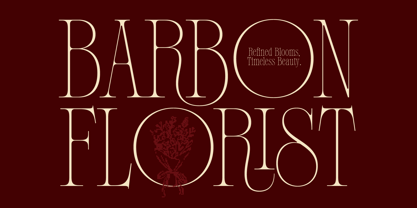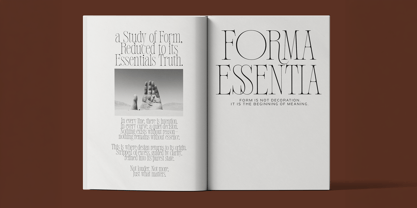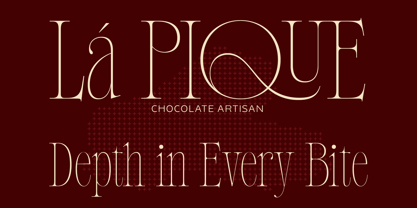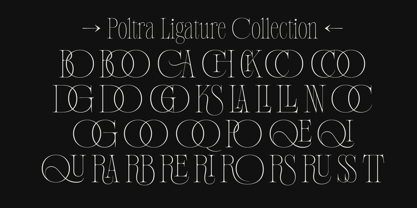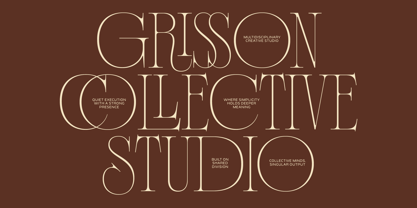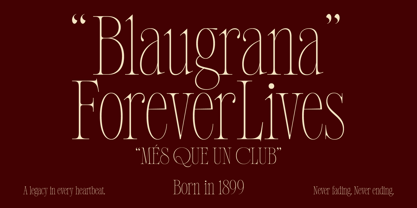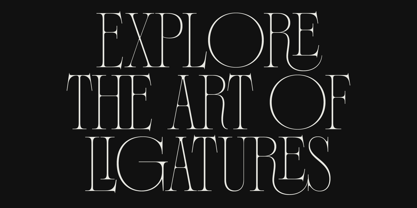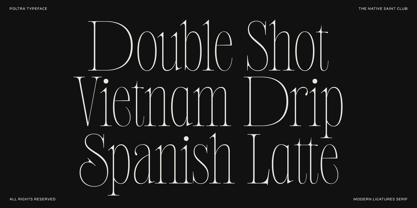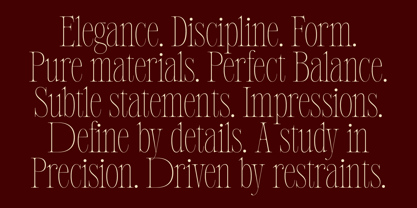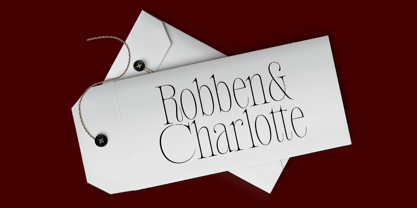
The Poltra Font Family was designed by Bagas Ferdiansah, Septianto Nugroho and published by The Native Saint Club. Poltra contains 1 styles. More about this family
POLTRA is a modern ligature serif typeface designed to bring elegance personality into every composition. With its graceful letterforms, high contrast strokes, and beautifully crafted ligatures, creates a sophisticated visual voice that feels both timeless and contemporary. Inspired by editorial aesthetics, luxury branding, and expressive typography. Made for projects that want to feel polished, artistic, and memorable. It works beautifully for fashion identities, boutique packaging, restaurant branding, café menus, hotel visuals, beauty products, book covers, invitations, posters, and high-end creative layouts.
Every curve and connection in POLTRA is designed to create a sense of rhythm, charm, and visual harmony. The ligatures add a unique character that makes headlines and logotypes feel more exclusive, while the serif structure keeps the overall look elegant and readable.